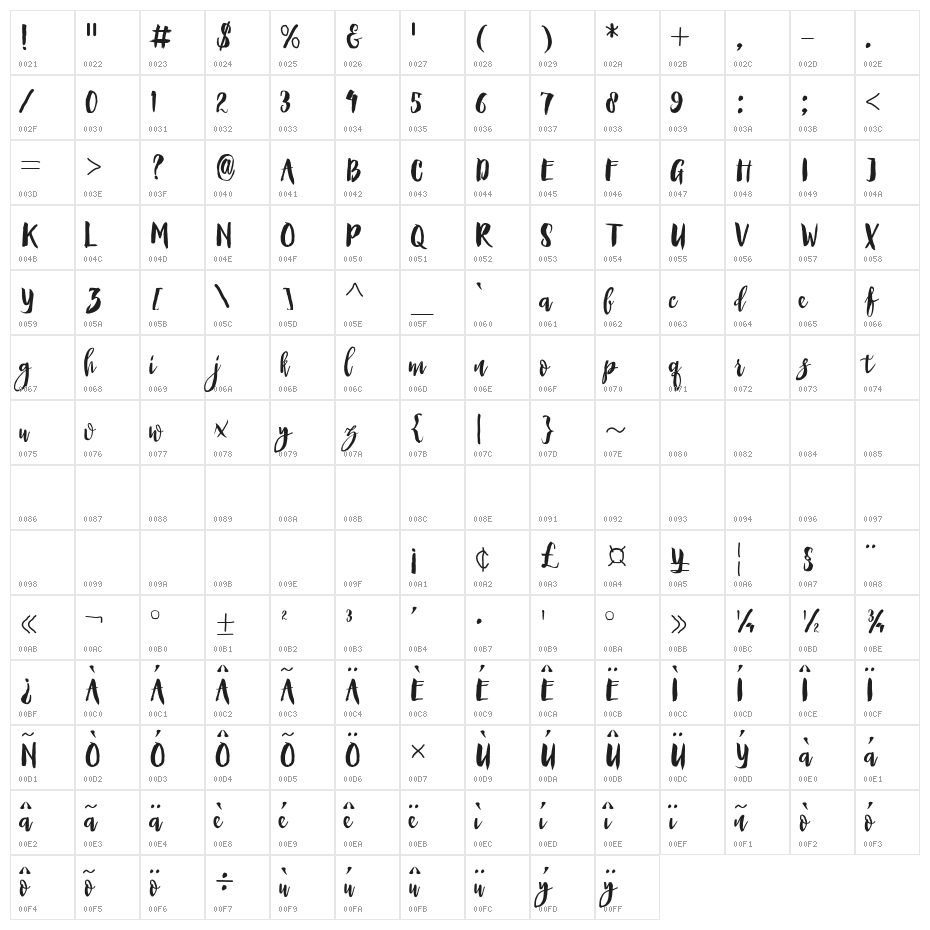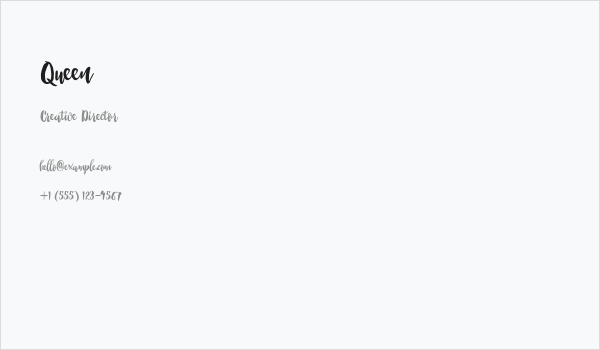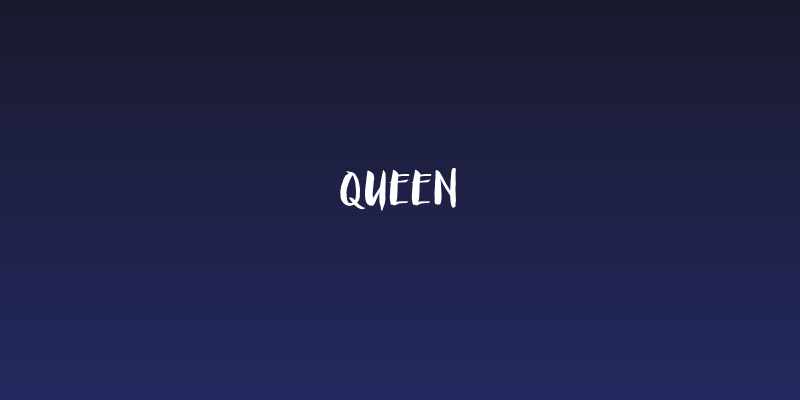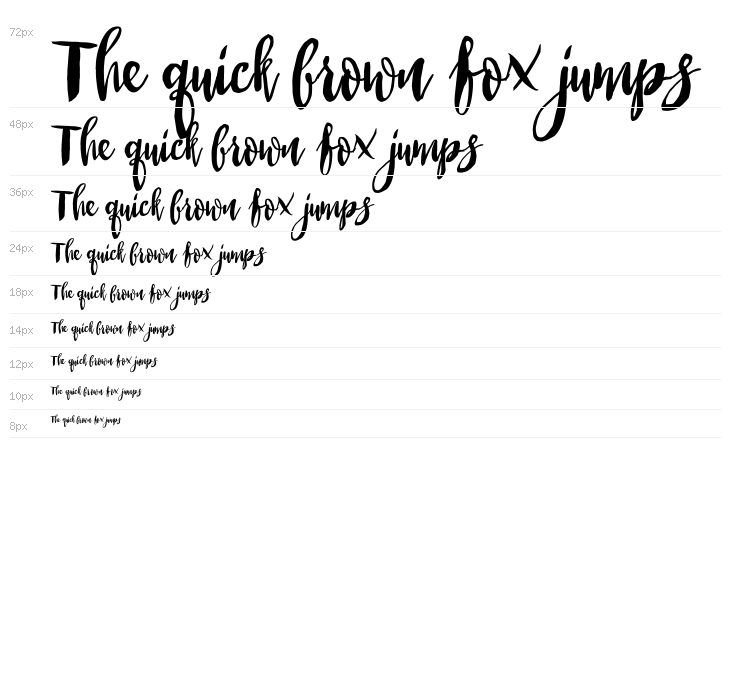
Queen Font
Queen Description
This font exhibits a bold and expressive style, characterized by its brush-like strokes and dynamic flow. The uppercase letters are robust and commanding, with a slight slant that adds a sense of movement and energy. The lowercase letters maintain a cohesive look with their cursive, interconnected forms, enhancing the font's fluidity. Numbers and special characters follow the same bold, artistic style, making them stand out. The overall appearance is both modern and artistic, suitable for projects that require a touch of creativity and flair.
| Use Case | Logos, Headlines, Posters |
| Proposed Projects | Ideal for branding, posters, invitations, and any design needing a creative, artistic touch. |